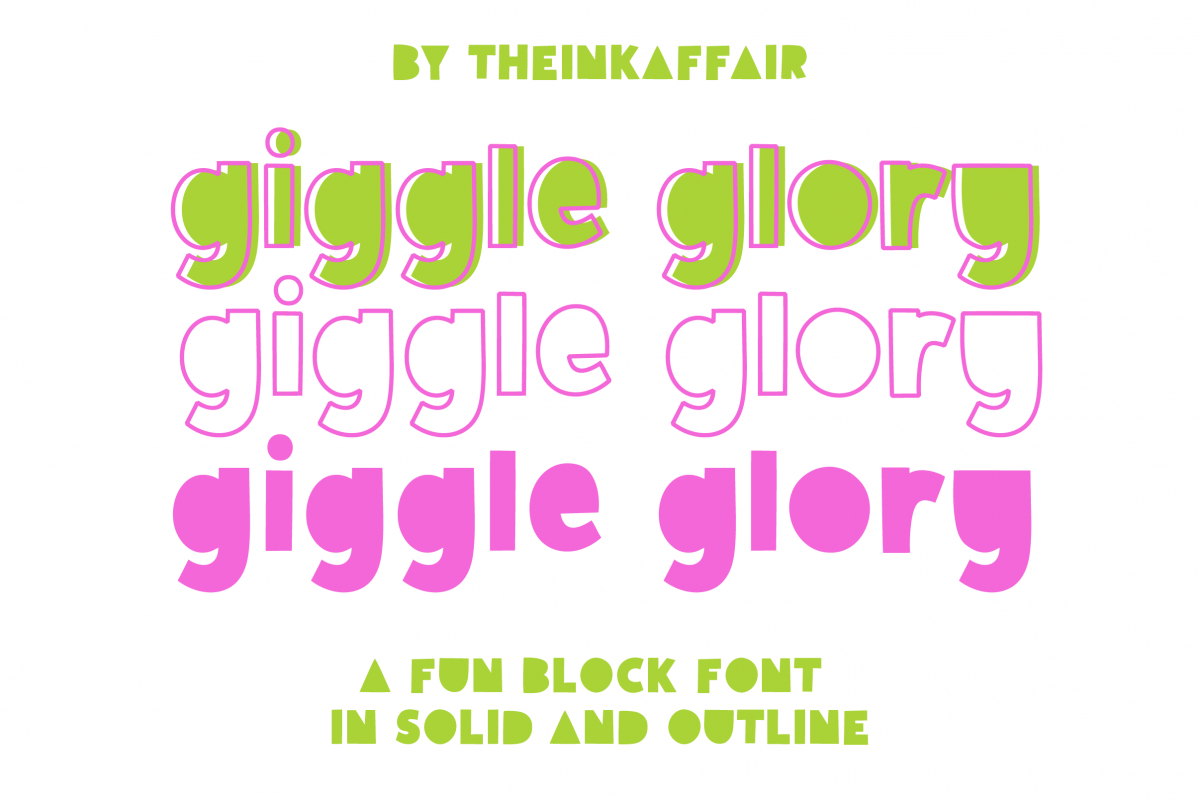
Giggle Glory, a fun block font
Giggle glory is a fun block font that comes in both solid and outline. Use them separately or together to create some pretty playful designs.